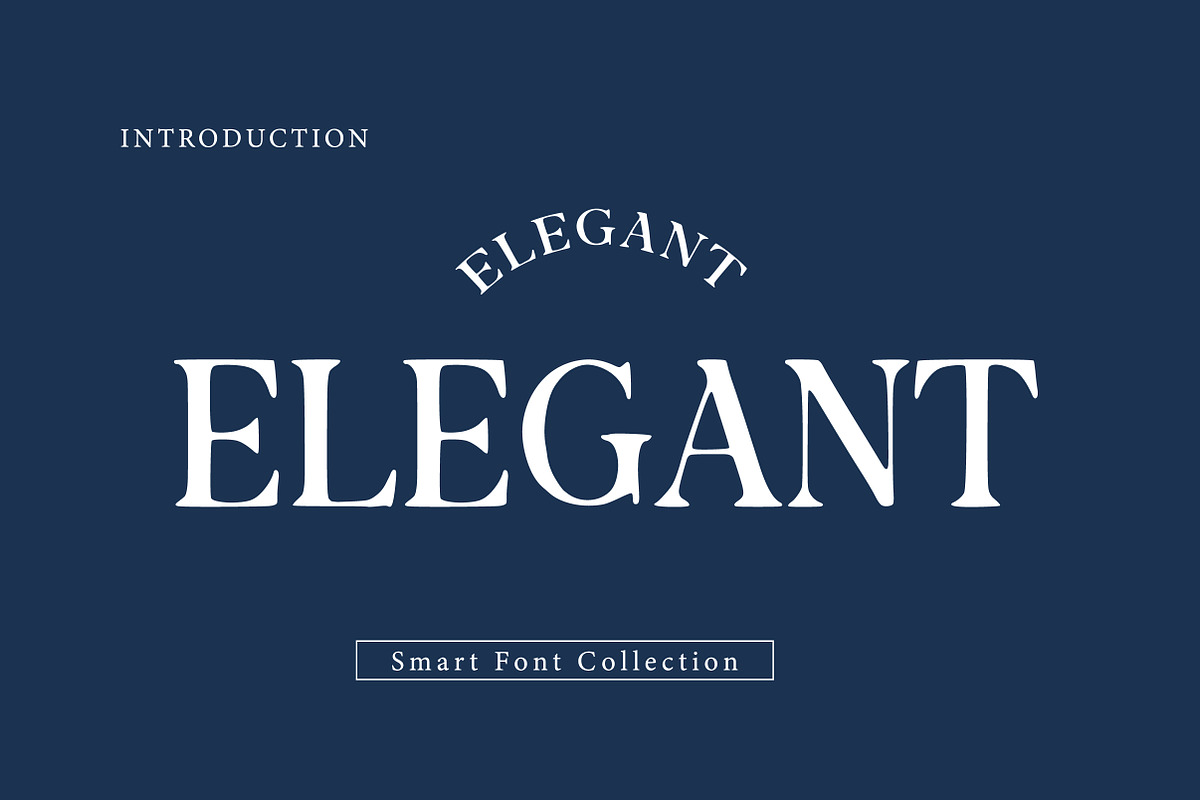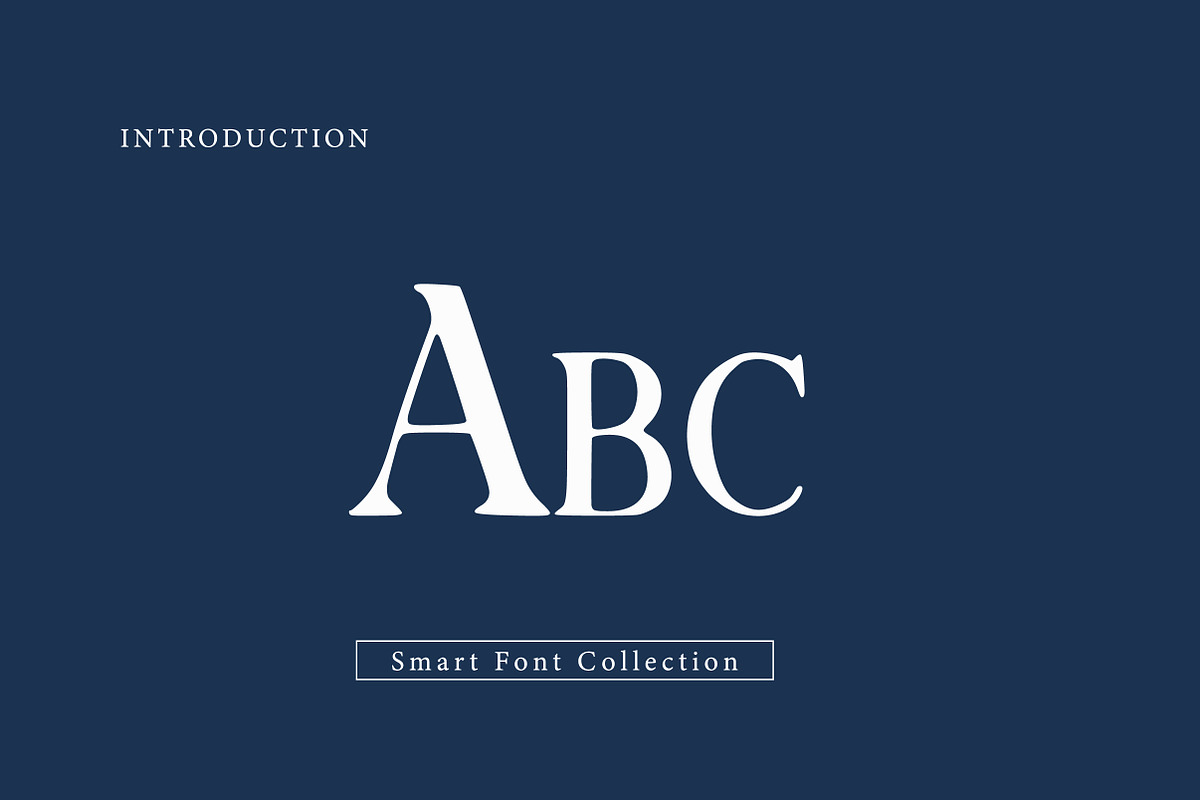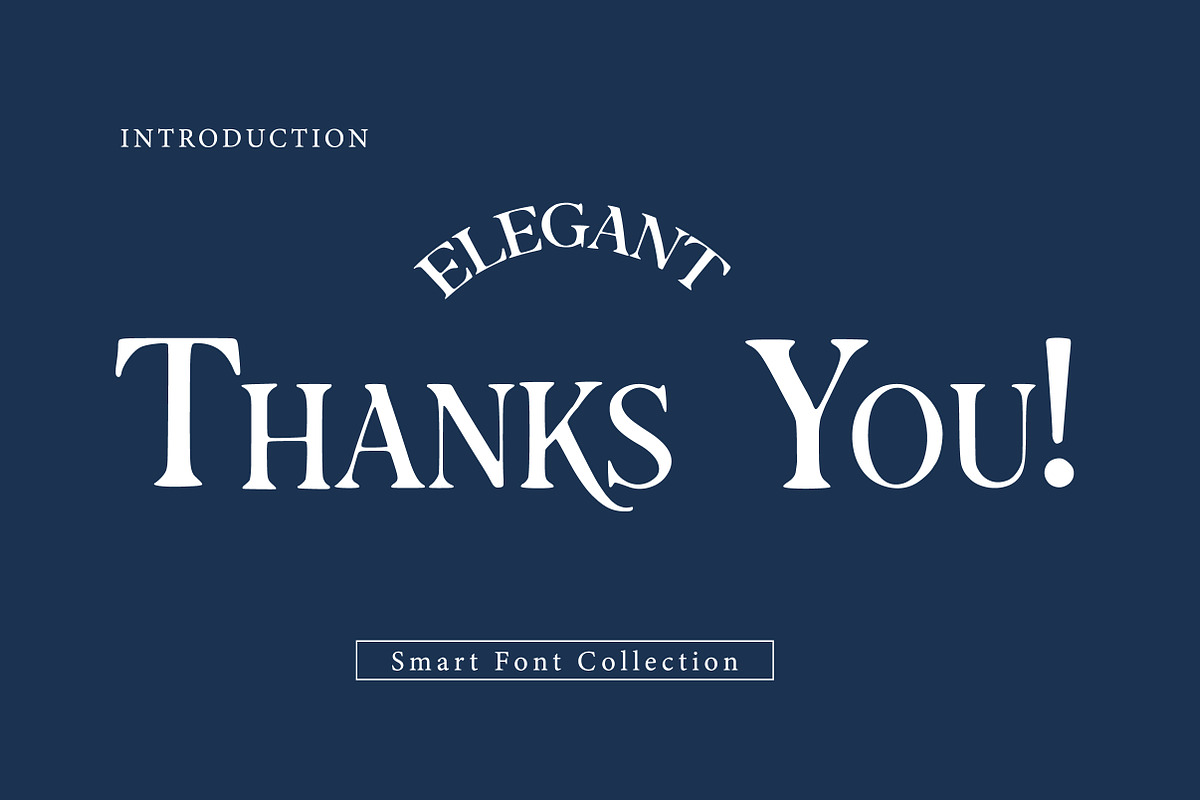
Elegant
Elegant is a refined serif display typeface designed with clean lines, graceful proportions, and a timeless sense of sophistication. Its high contrast strokes and classic letterforms convey luxury, clarity, and professionalism, making it ideal for upscale branding, editorial design, logos, fashion labels, invitations, book titles, and premium packaging. This font delivers a polished and confident aesthetic that never feels outdated.